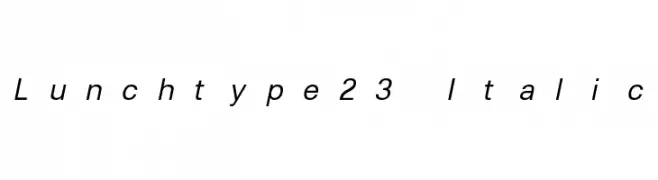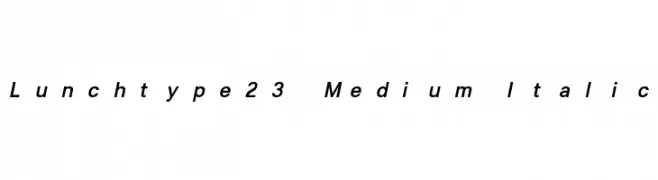
A clean, modern, and condensed light font with a minimalist design.
A modern, condensed sans-serif font with a clean and orderly appearance.
A clean, modern, and condensed font with medium weight, ideal for space-saving applications.
A sleek, modern, light italic sans-serif font with normal spacing.
A modern, italic font with clean lines and balanced proportions.
A modern, italic sans-serif font with a clean and dynamic style.
A modern, clean sans-serif font with uniform strokes and balanced spacing.
A bold, sans-serif font with strong, clean lines and high legibility.
A modern, italicized font with medium contrast and sleek design.
A modern, medium-weight sans-serif font with clean lines and balanced proportions.